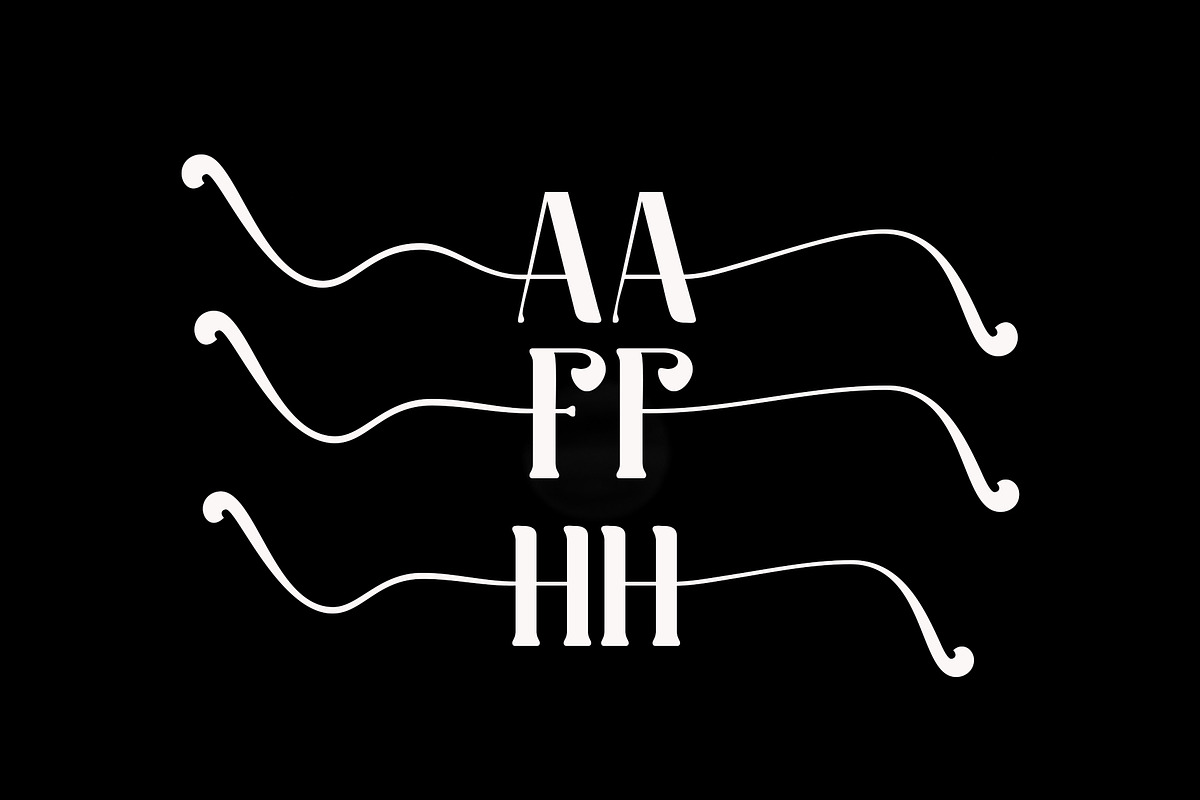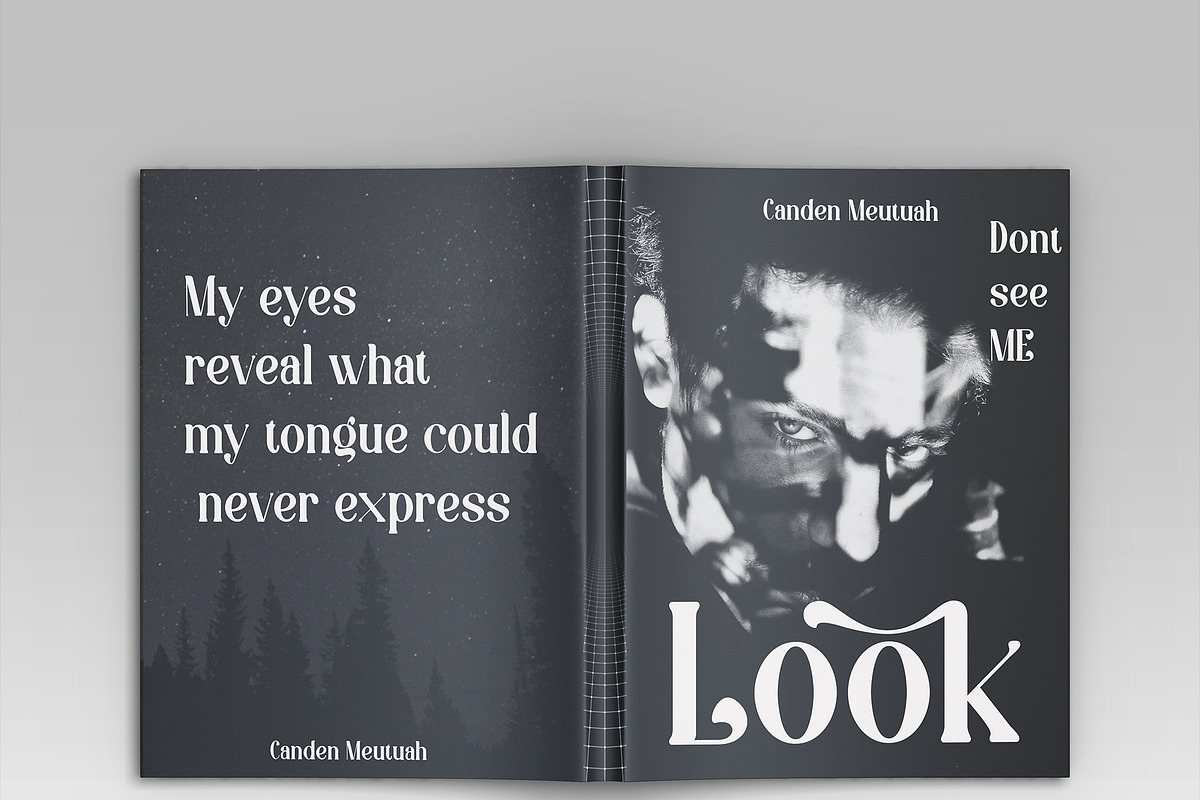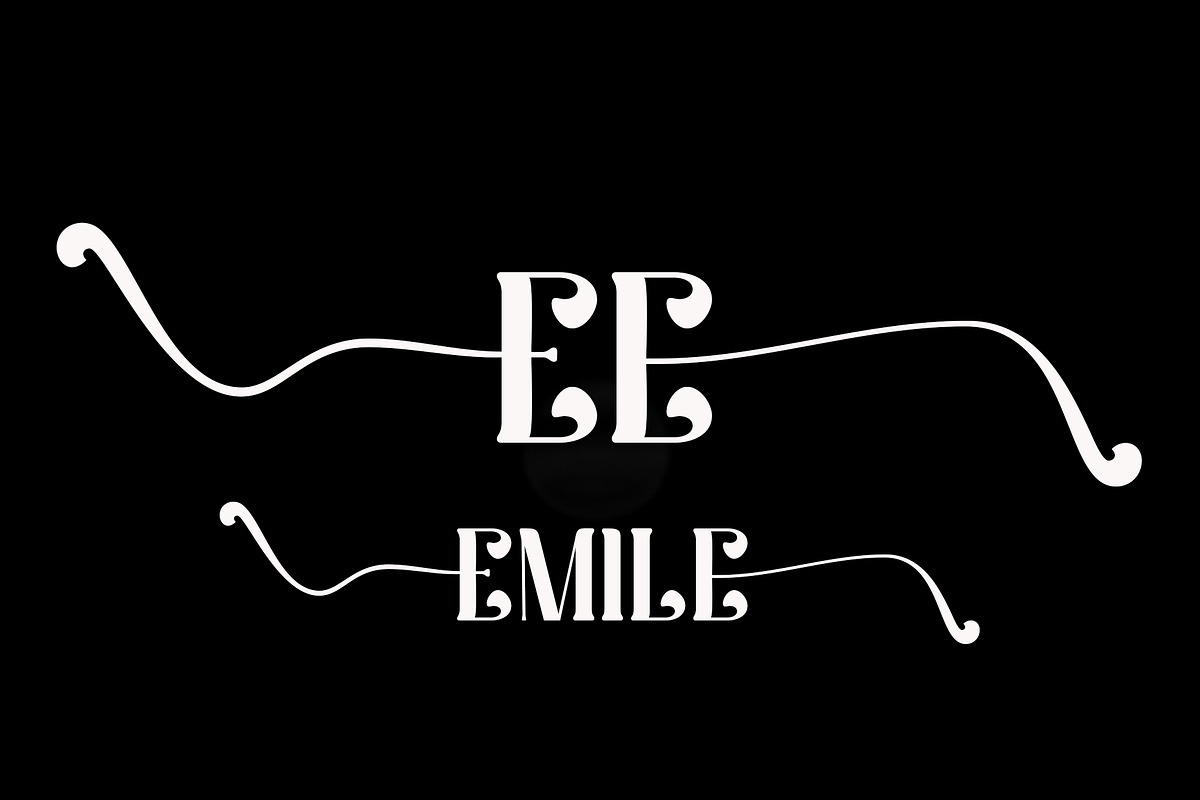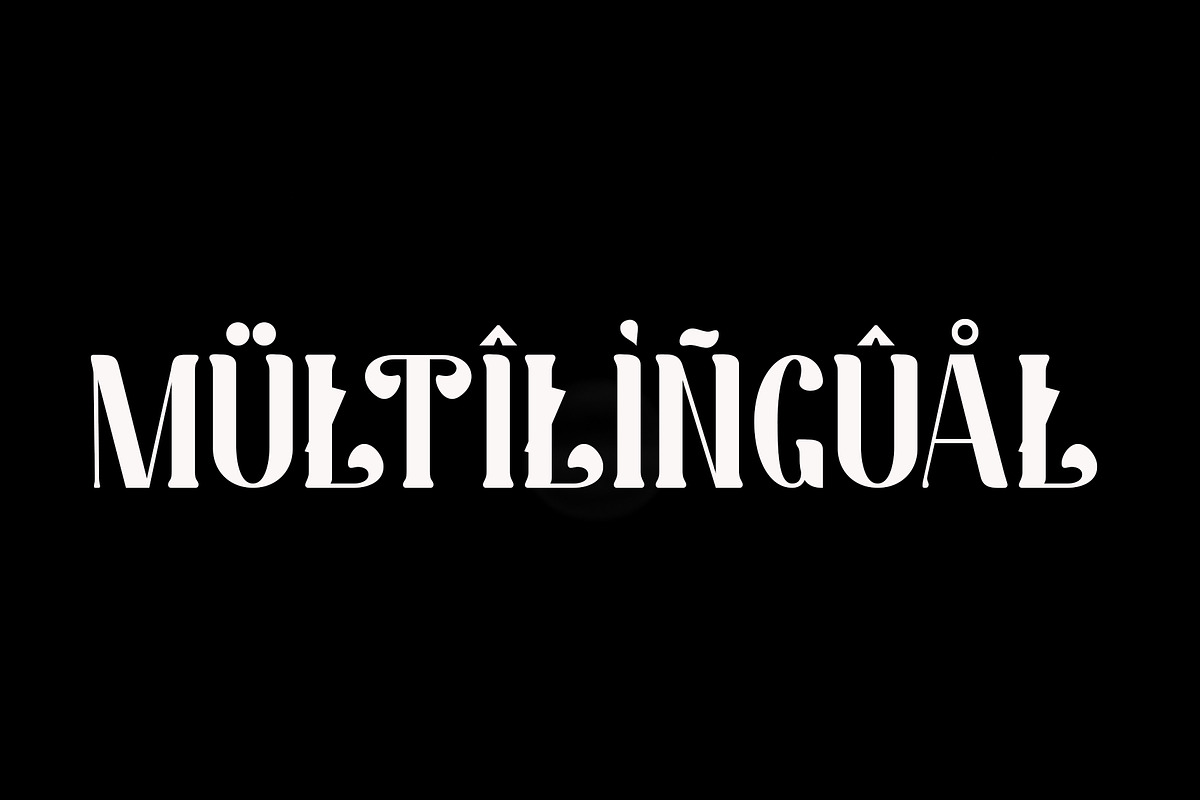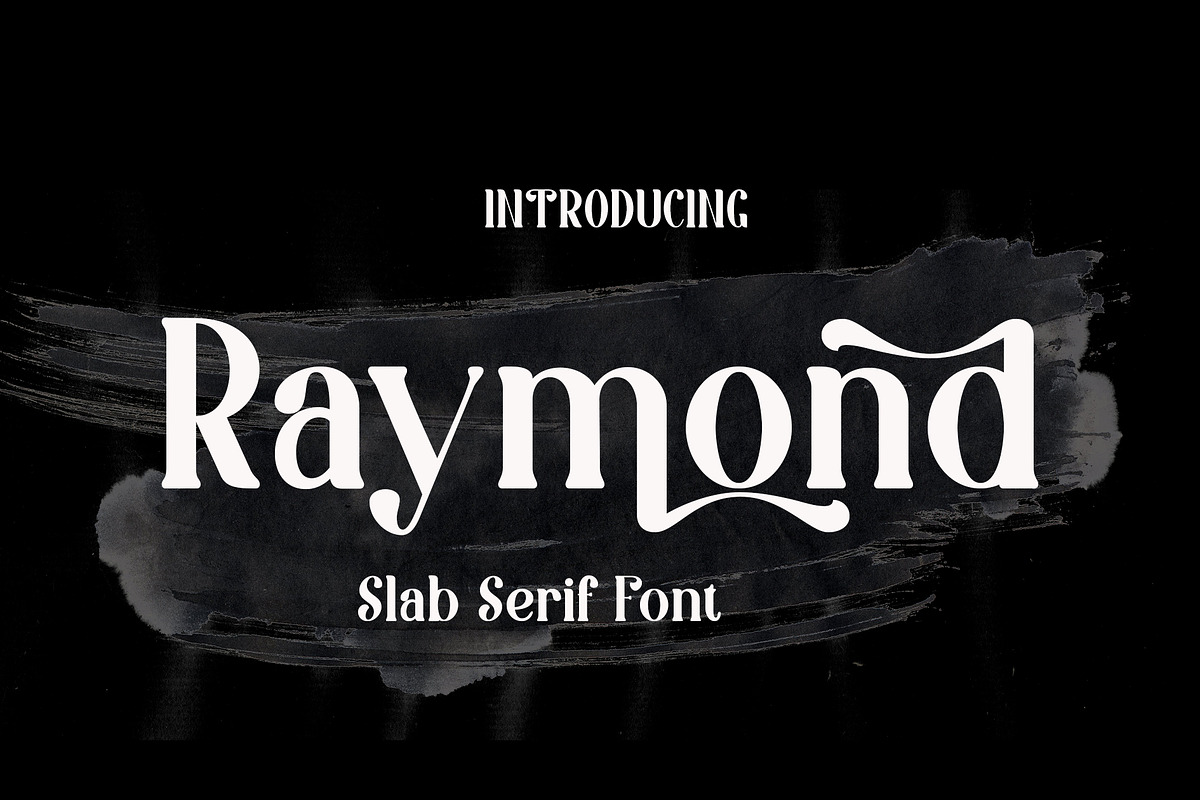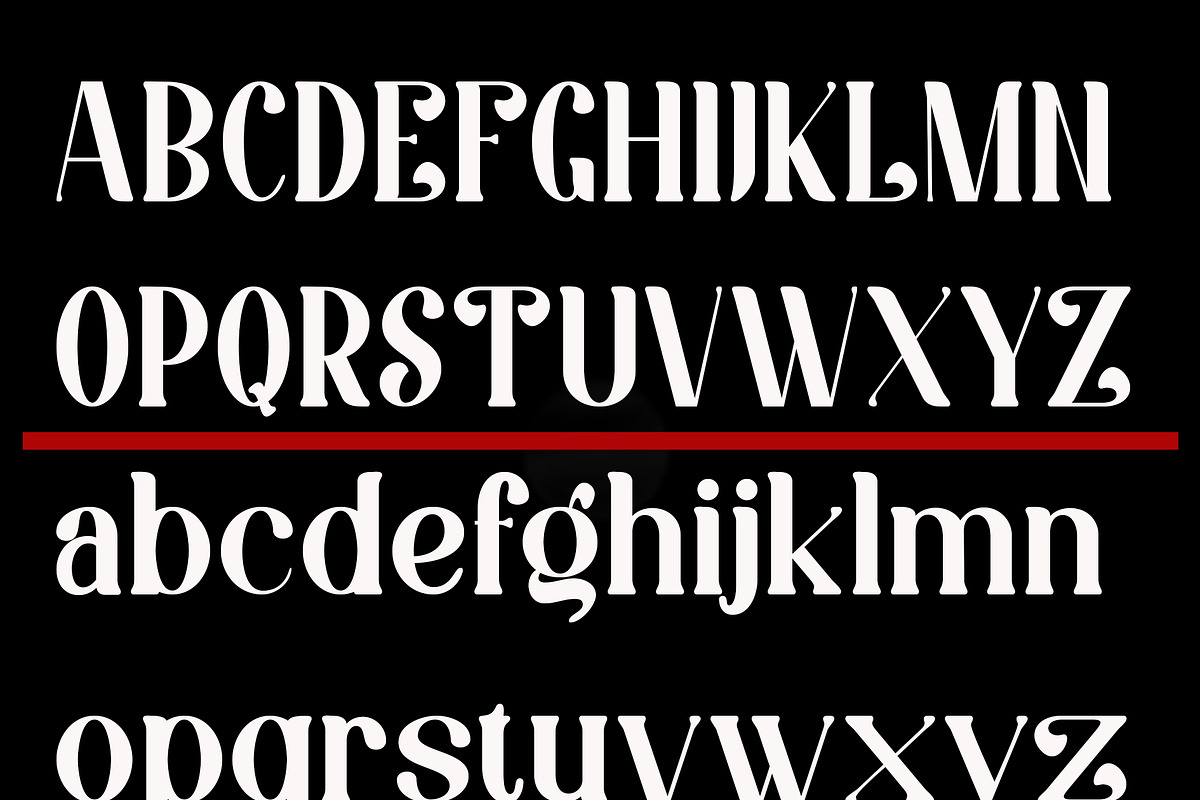
Raymond
This serif font is designed with a balance of classic elegance and modern readability, making it a perfect choice for editorial design, branding, and print applications. With smooth curves at the end of each character, the font blends rich traditional charm with a contemporary touch, creating a professional and sophisticated look. The sharp serifs provide clear structure, ensuring excellent legibility in long passages of text, while the varying weights and well-proportioned letterforms maintain a harmonious aesthetic at different sizes. Ideal for use in headings, subheadings, and body text, this font offers a bold yet approachable feel, delivering a strong presence that remains easy on the eyes.